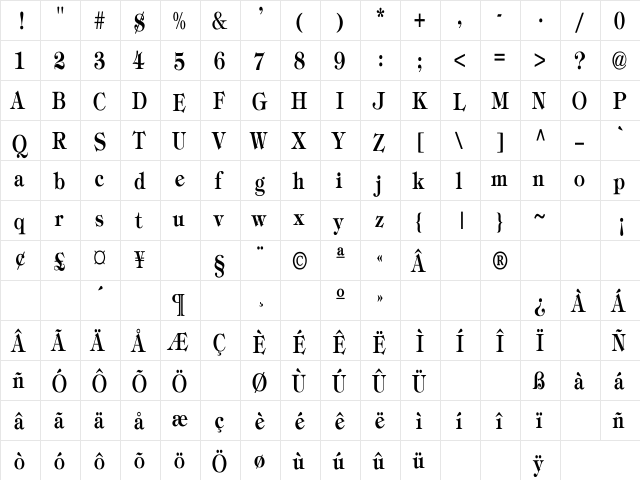
Tiffany-Bold Cn Regular
Design Context for Tiffany-Bold Cn Typeface
Tiffany-Bold Cn offers clean, dependable letterforms without strong stylistic allegiance, making it a practical choice for designers who need flexibility. The heavy weight commands attention and anchors typographic hierarchies.